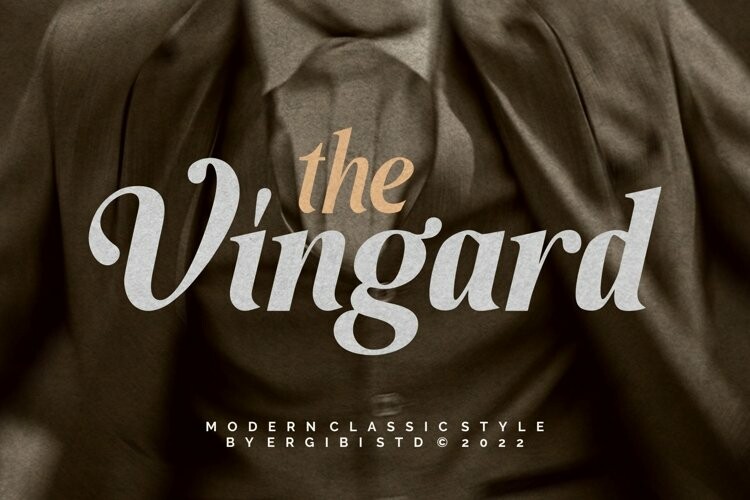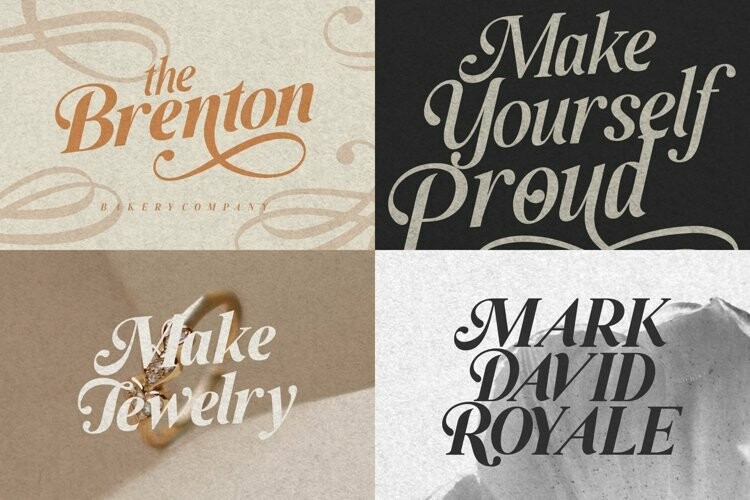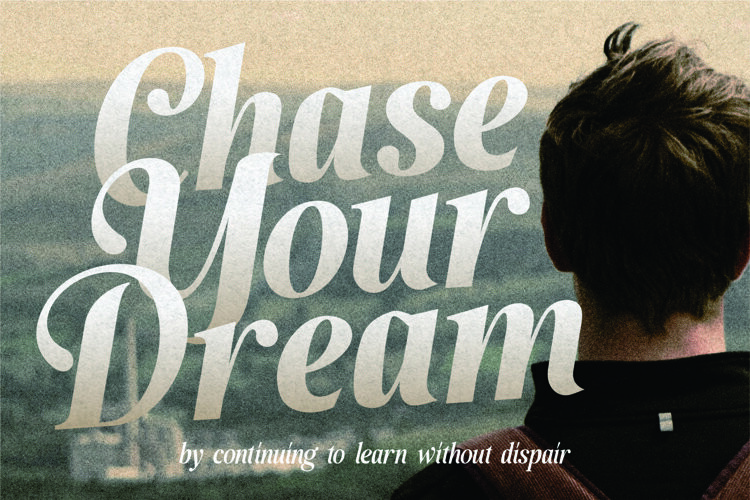
Vingard Font
Vingard FontVingard is a sophisticated serif, The many alternate character swash on serif makes this typeface unique and stands out rather than the regular serif font, perfectly for headlines, logos, posters, packaging, T-shirts,coffee shops, restaurants, magazine’s headers, signs or gift/post cards,cafe’s and weddings or any type of advertising purpose. comes with 2 versions namely Regular and bold